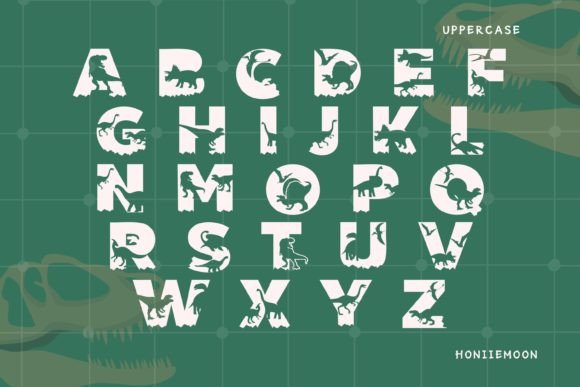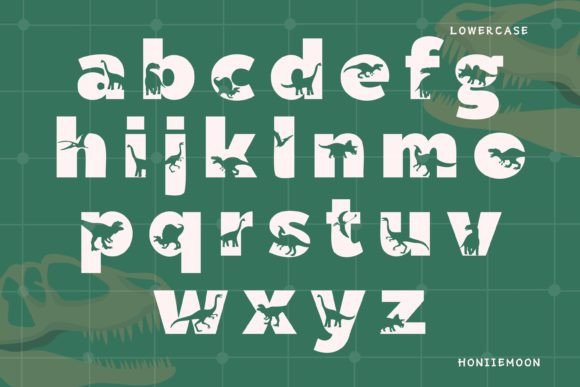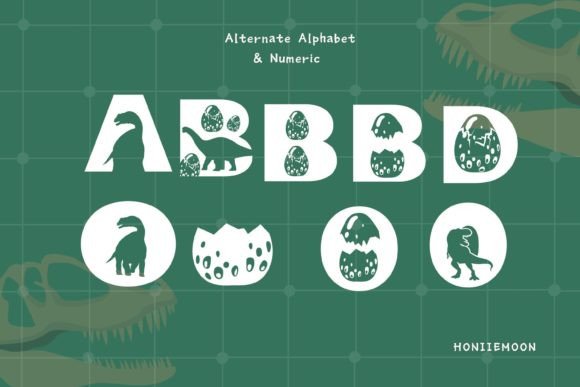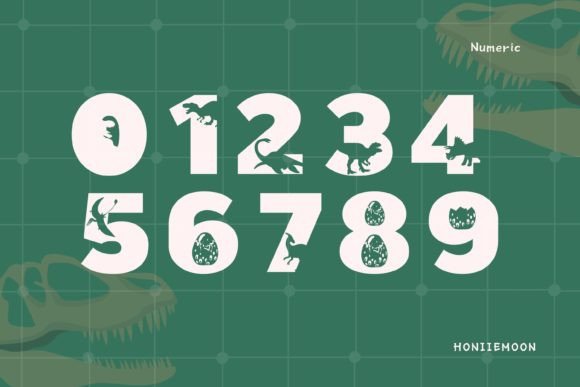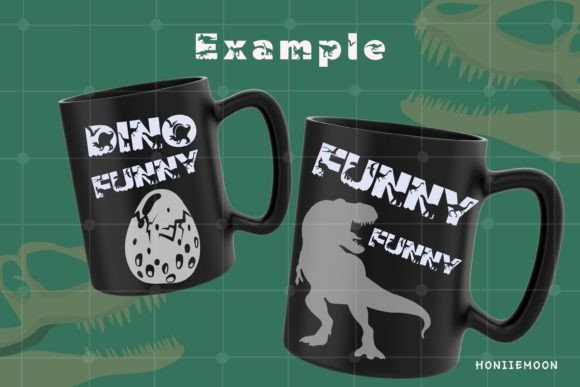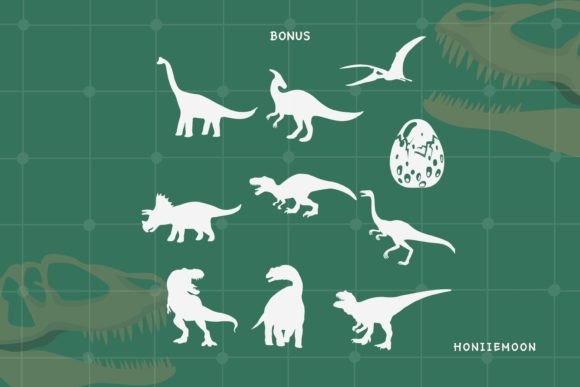
Dinosaur Font: Unleash Your Creativity with this Playful Display Font
Are you a designer, crafter, or DIY enthusiast looking for a font that can add a touch of fun and playfulness to your projects? Look no further than the Dinosaur Font! This cool and fun display font is perfect for anyone who wants to create eye-catching designs that are sure to delight. In this article, we’ll take a closer look at the Dinosaur Font, its features, and how you can use it to enhance your creative projects.
What is Dinosaur Font?
Dinosaur Font is a display font that is designed to bring a smile to your face. It’s a cute and jolly font that is perfect for creating playful and fun designs. Whether you’re working on a project for kids or adults, this font is sure to add a touch of whimsy and personality to your work. The font is versatile and can be used for a wide range of projects, from posters and flyers to invitations and crafts.
Key Features of Dinosaur Font
So, what makes Dinosaur Font so special? Here are some of its key features:
- Cute and Jolly: The font has a playful and fun design that’s sure to delight. It’s perfect for creating designs that are cute and engaging.
- Versatile: The Dinosaur Font is versatile and can be used for a wide range of projects, from posters and flyers to invitations and crafts.
How to Use Dinosaur Font in Your Designs
So, how can you use Dinosaur Font in your designs? Here are some ideas to get you started:
- Create Fun Posters: Use the Dinosaur Font to create fun and playful posters for kids’ parties, events, or promotions.
- Make Invitations: Add a touch of whimsy to your invitations with the Dinosaur Font. It’s perfect for baby showers, birthday parties, or other celebrations.
- Design Crafts: Use the font to create fun and playful crafts, such as signs, banners, or DIY projects.
- Enhance Your Brand: If you’re a business owner, you can use the Dinosaur Font to add a touch of personality to your brand. It’s perfect for creating fun and engaging marketing materials.
Tips for Using Dinosaur Font
Here are some tips for using the Dinosaur Font in your designs:
- Experiment with Colors: The Dinosaur Font looks great in bright and bold colors. Experiment with different colors to find the perfect combination for your design.
- Mix and Match: Don’t be afraid to mix and match the Dinosaur Font with other fonts. This can create a unique and interesting look.
- Use Swashes and Glyphs: The Dinosaur Font has a range of swashes and glyphs that you can use to add extra flair to your design.
In conclusion, the Dinosaur Font is a fun and playful display font that’s perfect for designers, crafters, and DIY enthusiasts. Its cute and jolly design makes it ideal for creating playful and engaging designs. With its PUA encoding, you can access all glyphs and swashes with ease. Whether you’re working on a project for kids or adults, the Dinosaur Font is sure to add a touch of whimsy and personality to your work. So why not give it a try and see how it can enhance your creative projects?